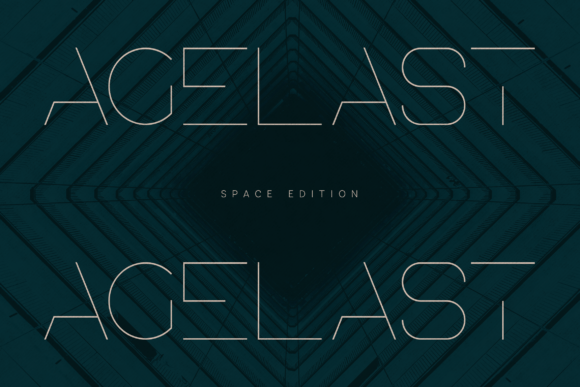
Introduction to Agelast Font
Agelast is a modern futuristic display font designed with thin geometric strokes and minimalist letterforms.
The typography combines clean structural lines with a sleek sci-fi aesthetic, creating a distinctive futuristic character Agelast is ideal for technology branding, futuristic design projects, sci-fi visuals, space themed graphics, modern editorial layouts, posters, digital interfaces, creative typography compositions, and contemporary visual identities.
Key Features of Agelast Font
Why Choose Agelast Font?